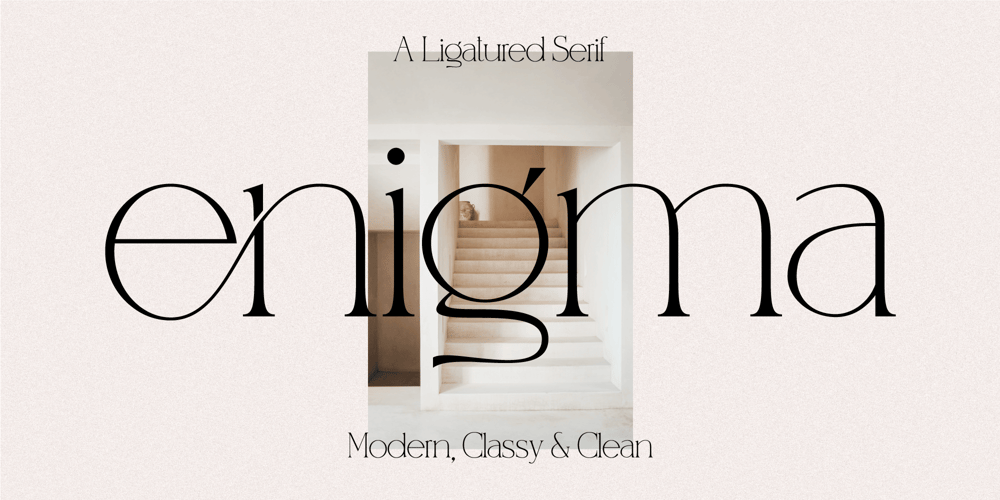
Enigma Serif
Enigma Serif font
Enigma Serif Font Family was designed by Zak M and published by Prestige Artsy Studio. Enigma Serif contains 1 styles and family package options. Introducing Enigma Serif, a sleek serif with beautiful ligatures, perfect for adding elegance and sophistication to your designs. Its clean, modern style makes it ideal for branding, editorial design, and digital applications.Embrace the timeless charm ofEnigma Serif and elevate your projects to new levels of beauty.